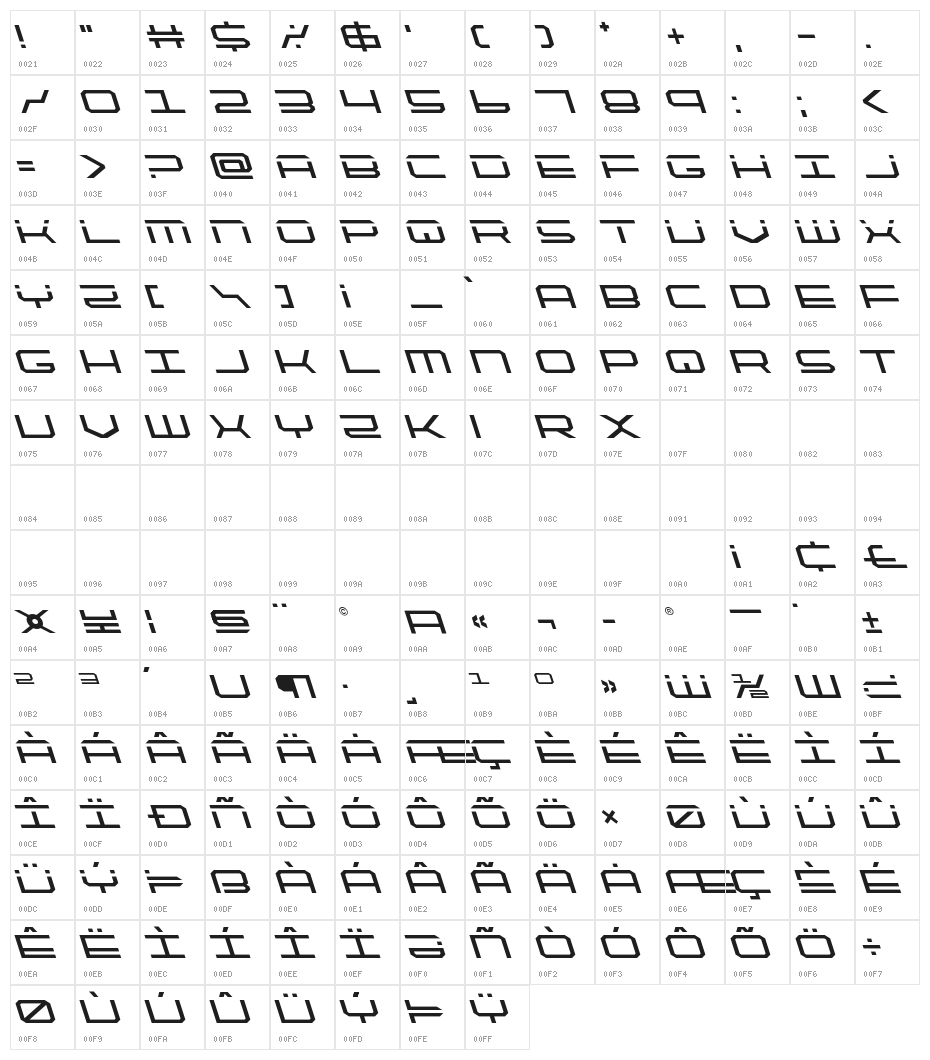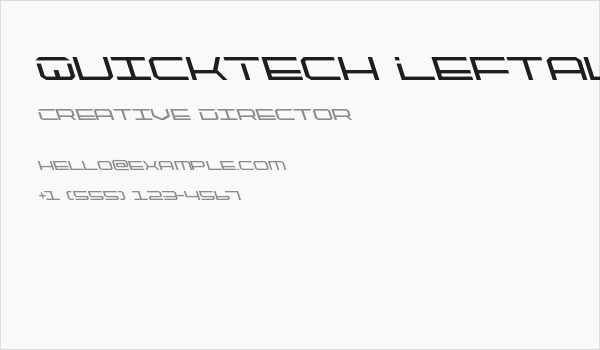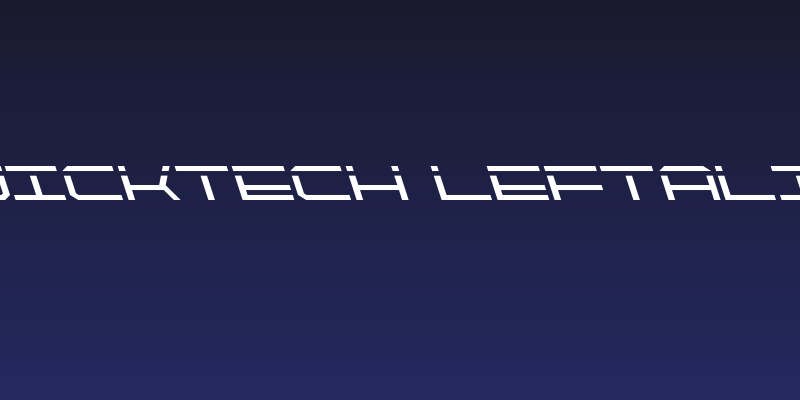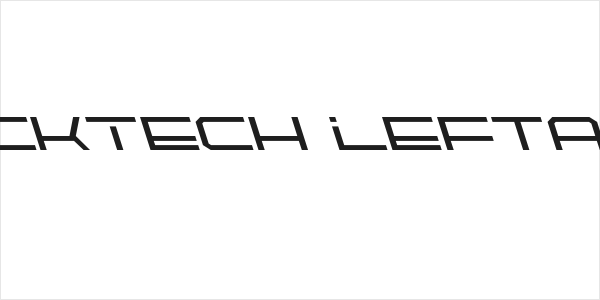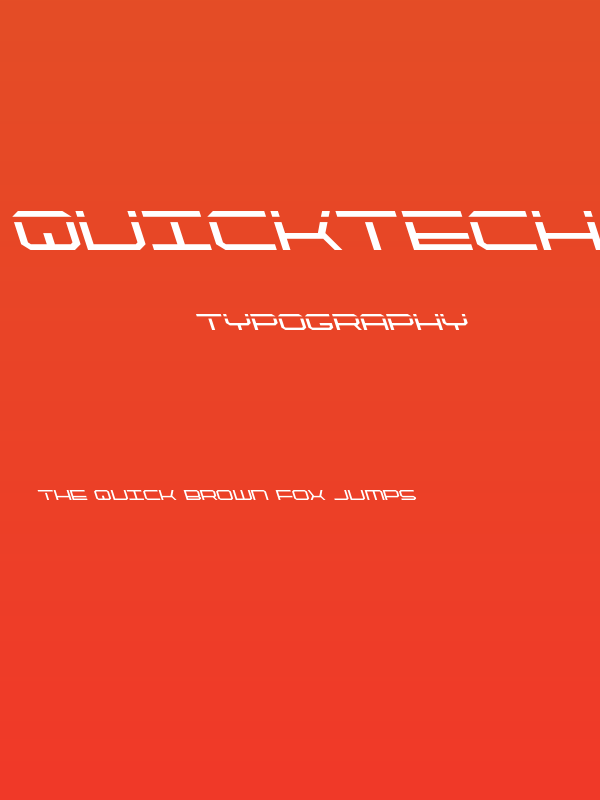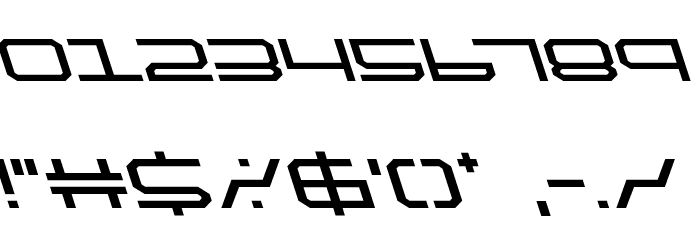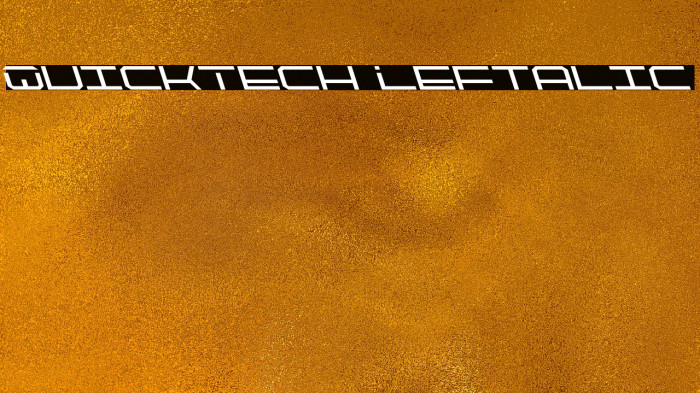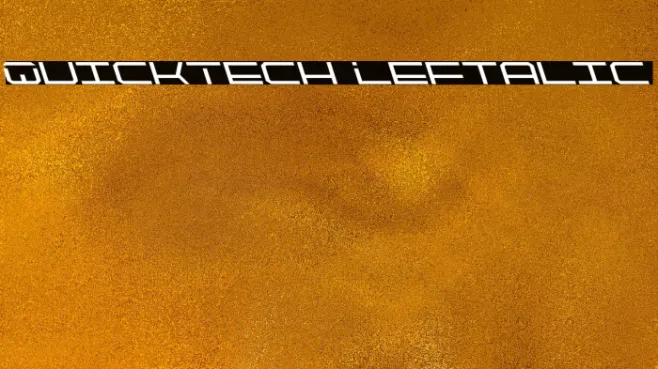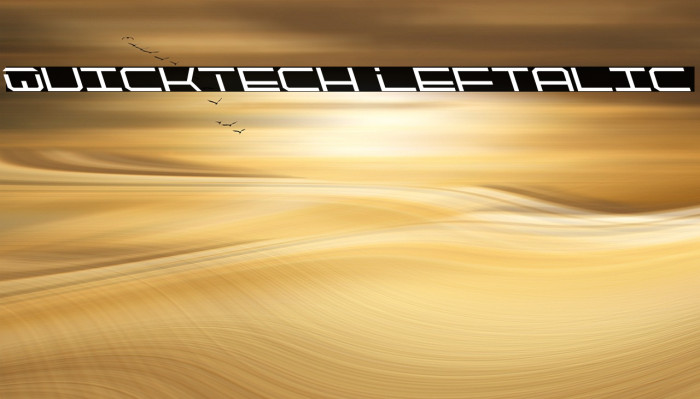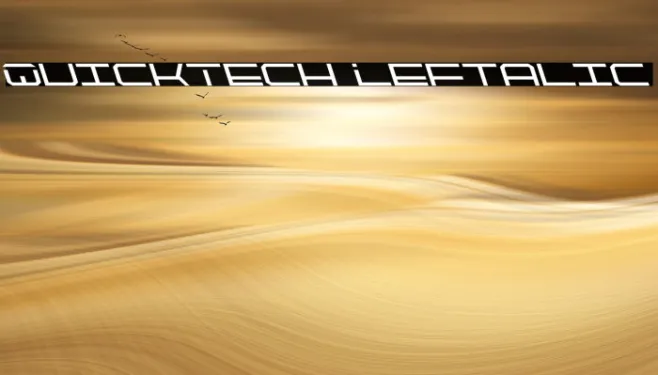
QuickTech Leftalic Font
QuickTech Leftalic Description
This font features a futuristic and angular design, characterized by its sharp edges and geometric shapes. The uppercase and lowercase letters maintain a consistent style, with a slight slant that adds a dynamic feel. The numerals and special characters follow the same angular theme, ensuring uniformity across all glyphs. The font's unique style is reminiscent of digital or technological themes, making it suitable for projects that require a modern and edgy look. Its distinct appearance is both eye-catching and memorable, ideal for creative and innovative designs.
| Proposed Projects | Ideal for tech-related branding, sci-fi movie posters, video game titles, and digital art projects. |